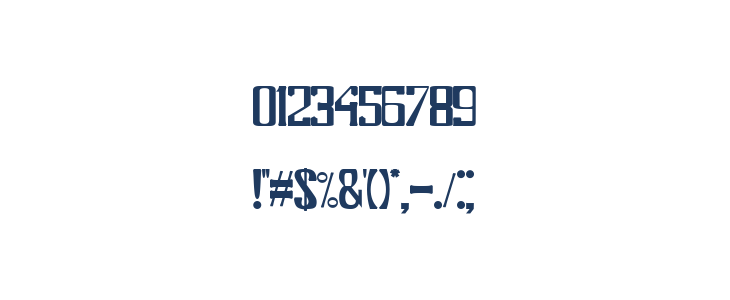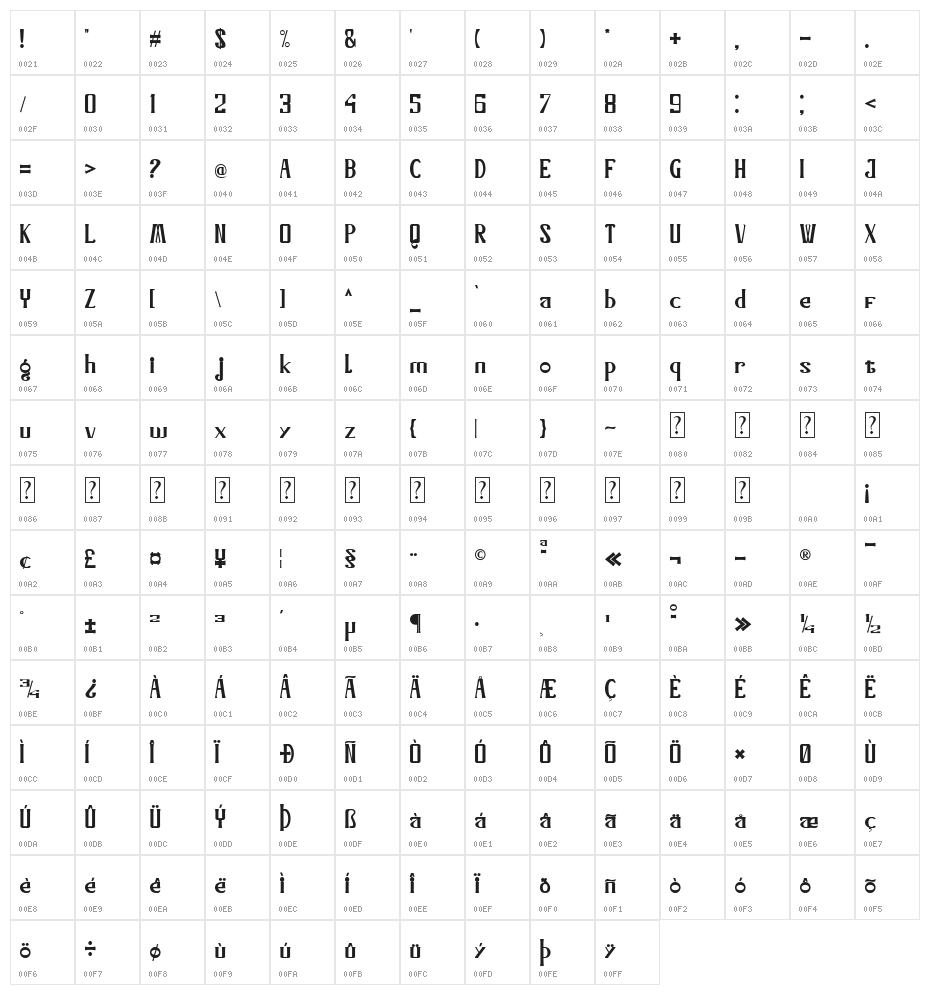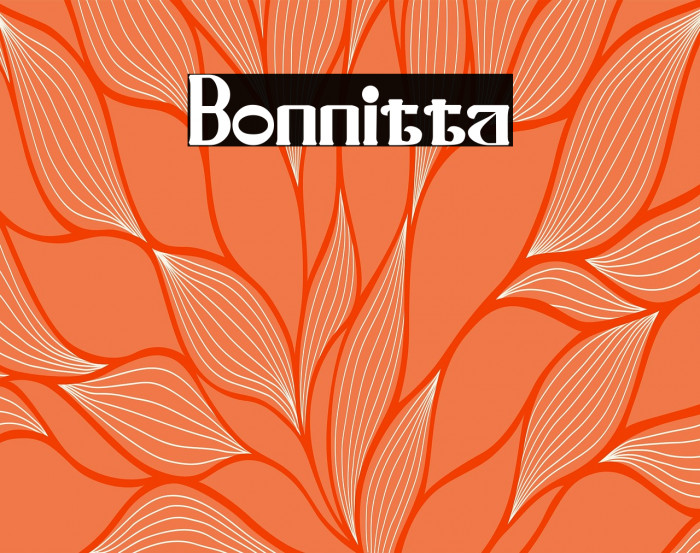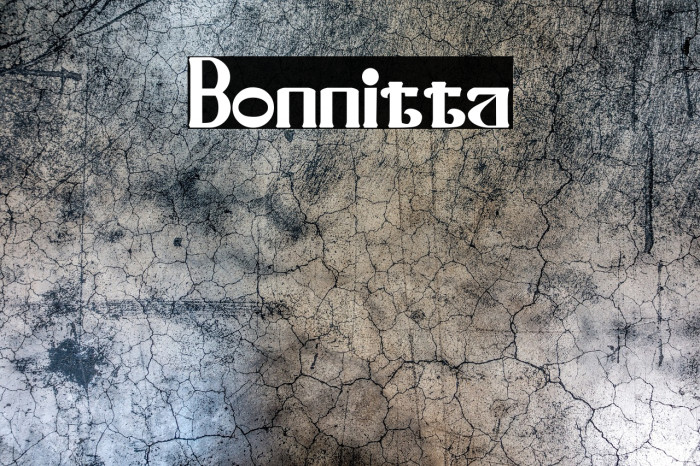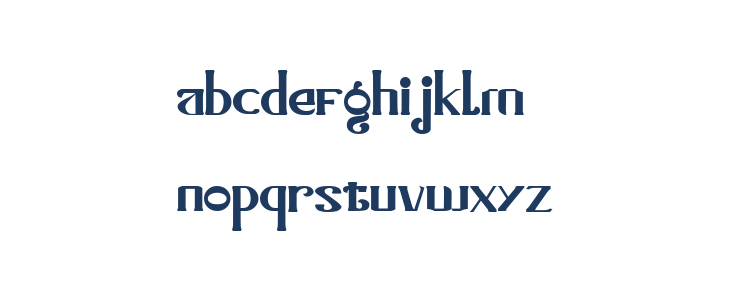
Bonnitta Font
Bonnitta Description
This font features a unique and artistic design, characterized by its bold and decorative style. The uppercase letters have a distinct flair with exaggerated serifs and varying stroke widths, giving them a dynamic and eye-catching appearance. The lowercase letters maintain a consistent style, with some characters featuring playful loops and curves. The numerals are bold and consistent with the overall theme, while the special characters add a touch of whimsy. This font stands out with its high contrast and intricate details, making it suitable for creative and expressive projects.